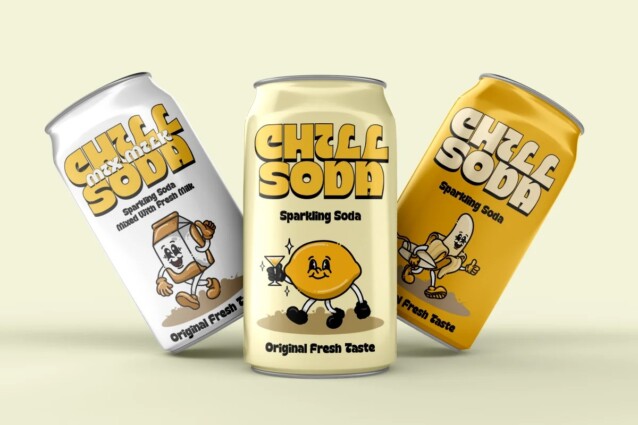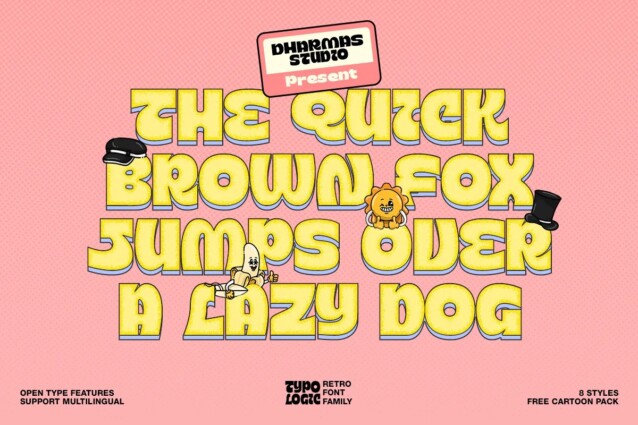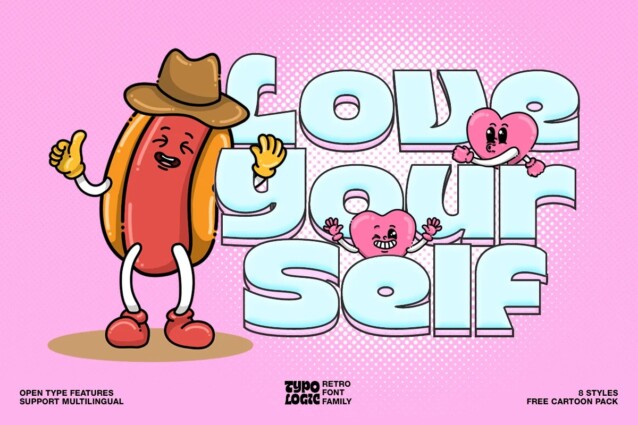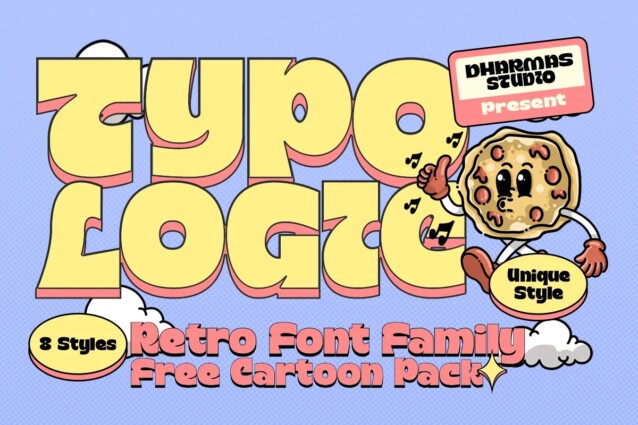
Typologic Font
Typologic Font is warm and inviting typeface designed for impact. This versatile typeface offers not just one, but 8 distinct font families, each with its own unique character. You’ll find Condensed, Normal, Semi Expanded, and stylish shadow versions.
Whether you’re crafting a memorable logotype, eye-catching headlines, inviting signage, stylish apparel, chic invitations, captivating posters, heartwarming greeting cards, charming packaging, captivating book covers, inspiring printed quotes, striking album art, or cinematic movie titles, Typologic is your ultimate design companion.